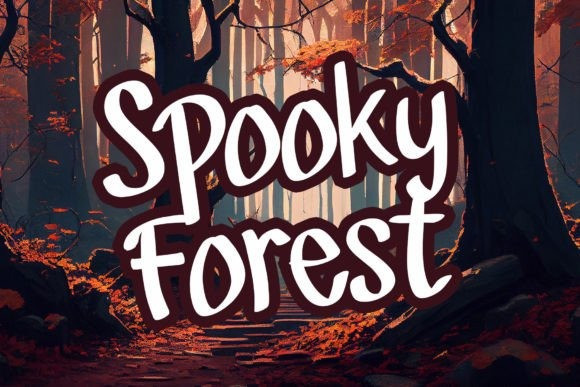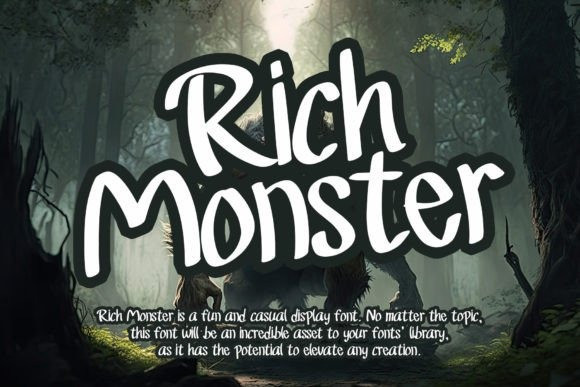
Rich Monster Font
Rich Monster Font is a fun and casual display font. No matter the topic, this font will be an incredible asset to your fonts’ library, as it has the potential to elevate any creation.